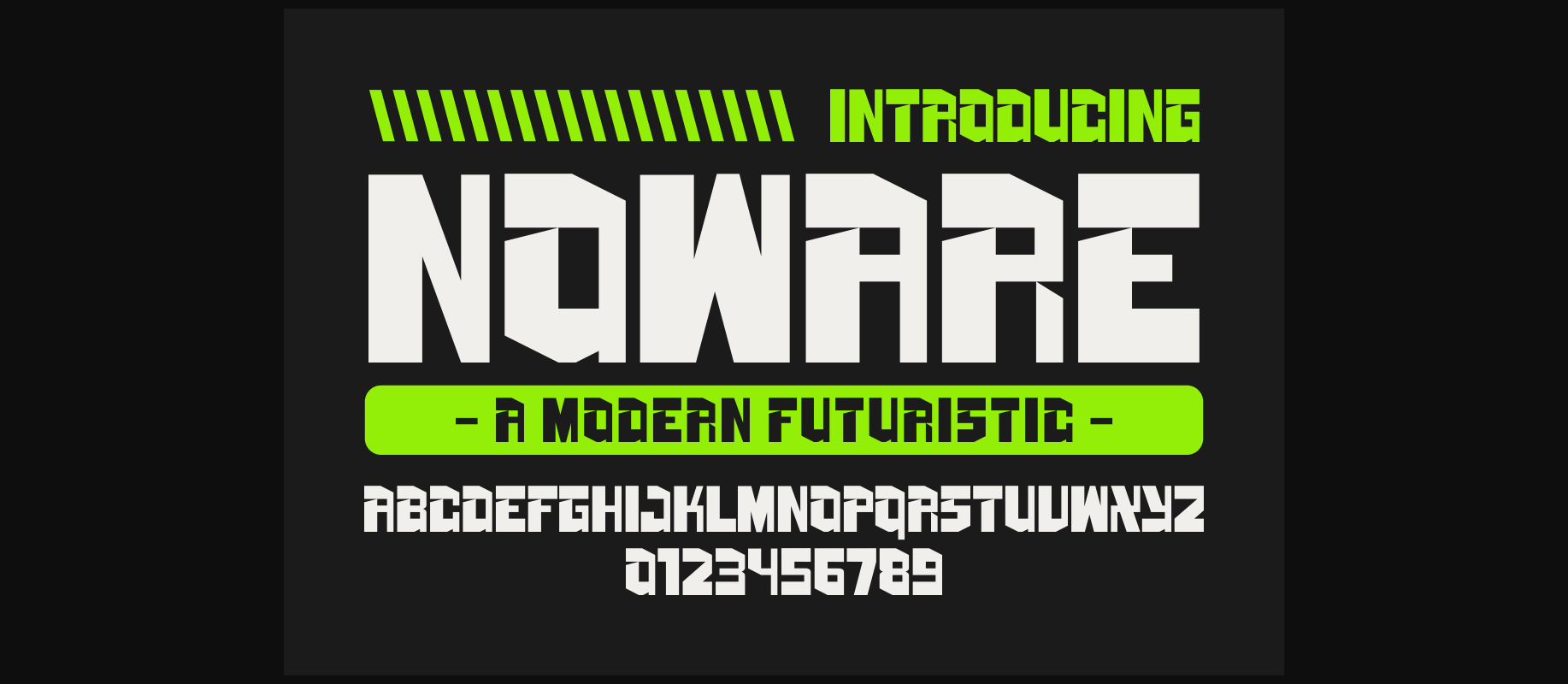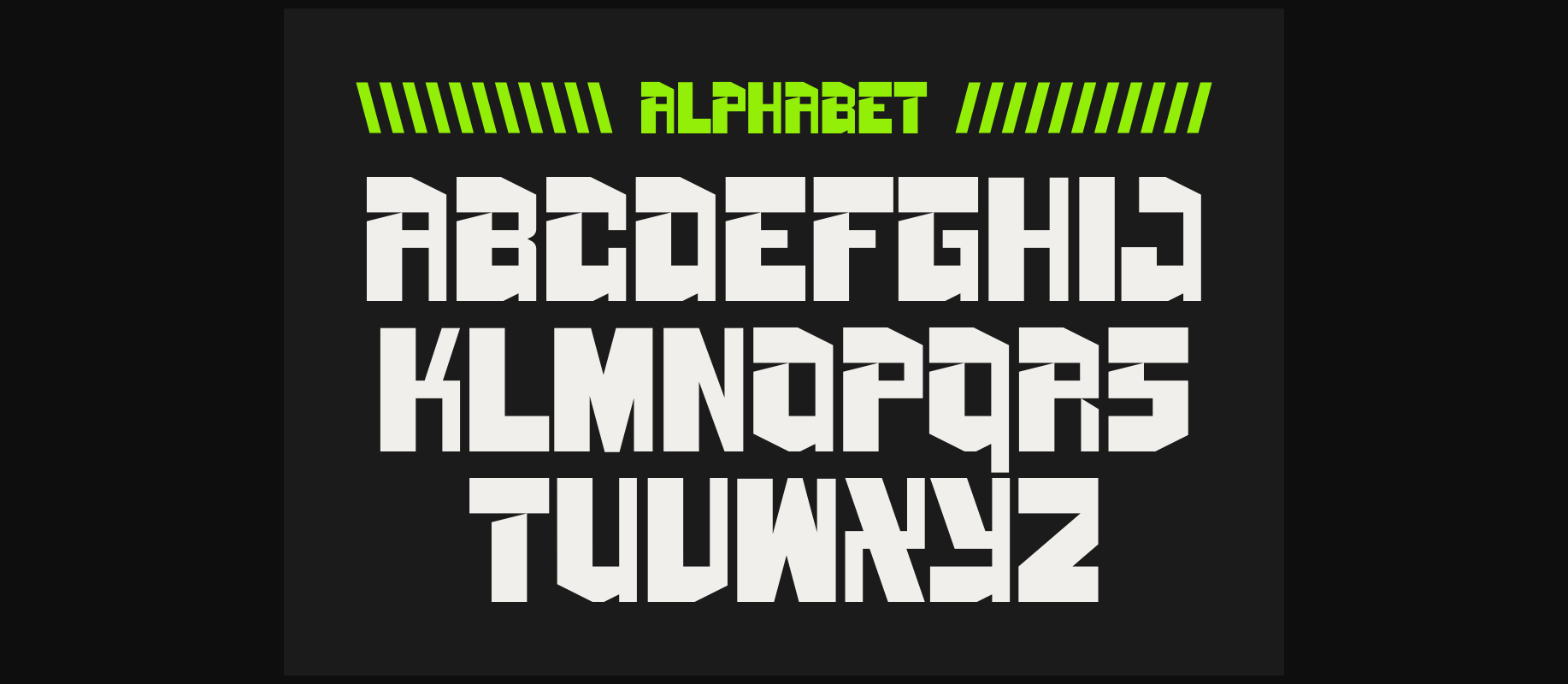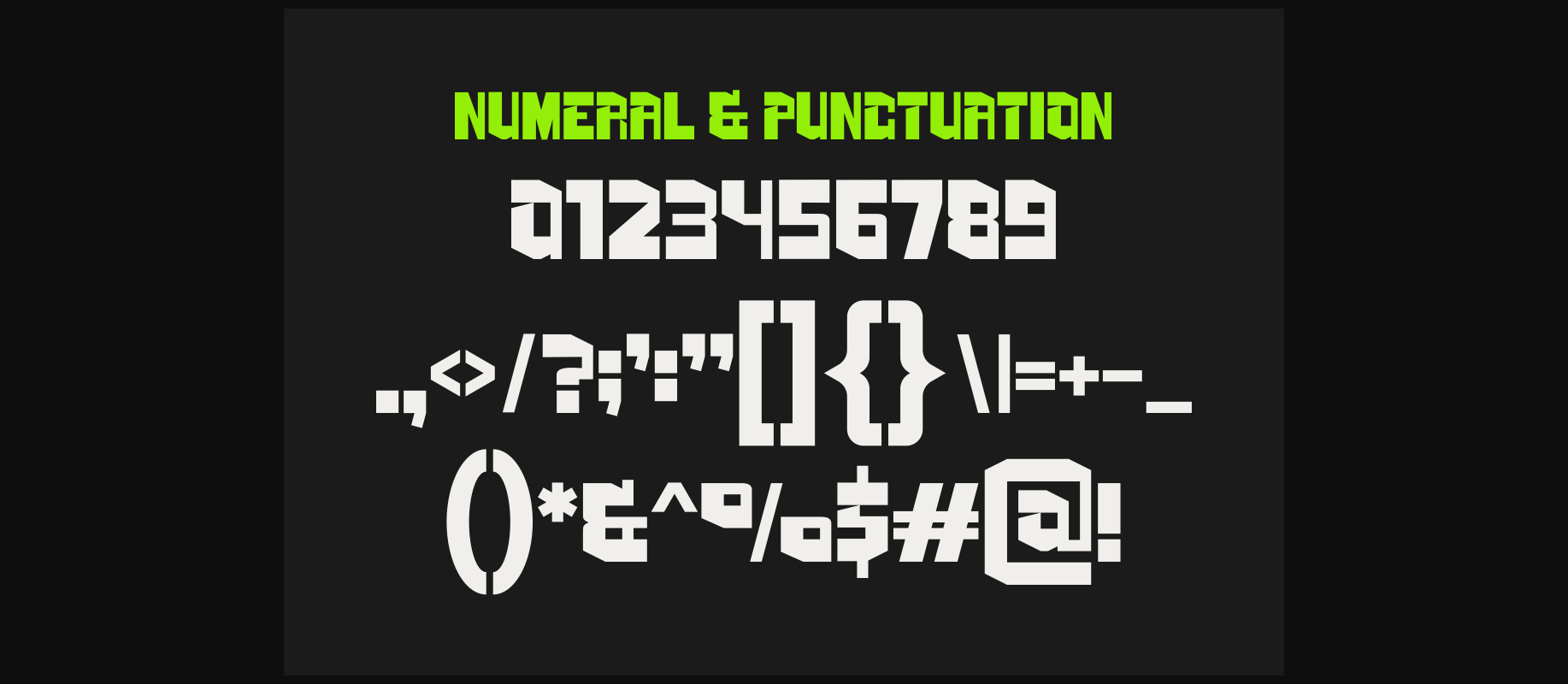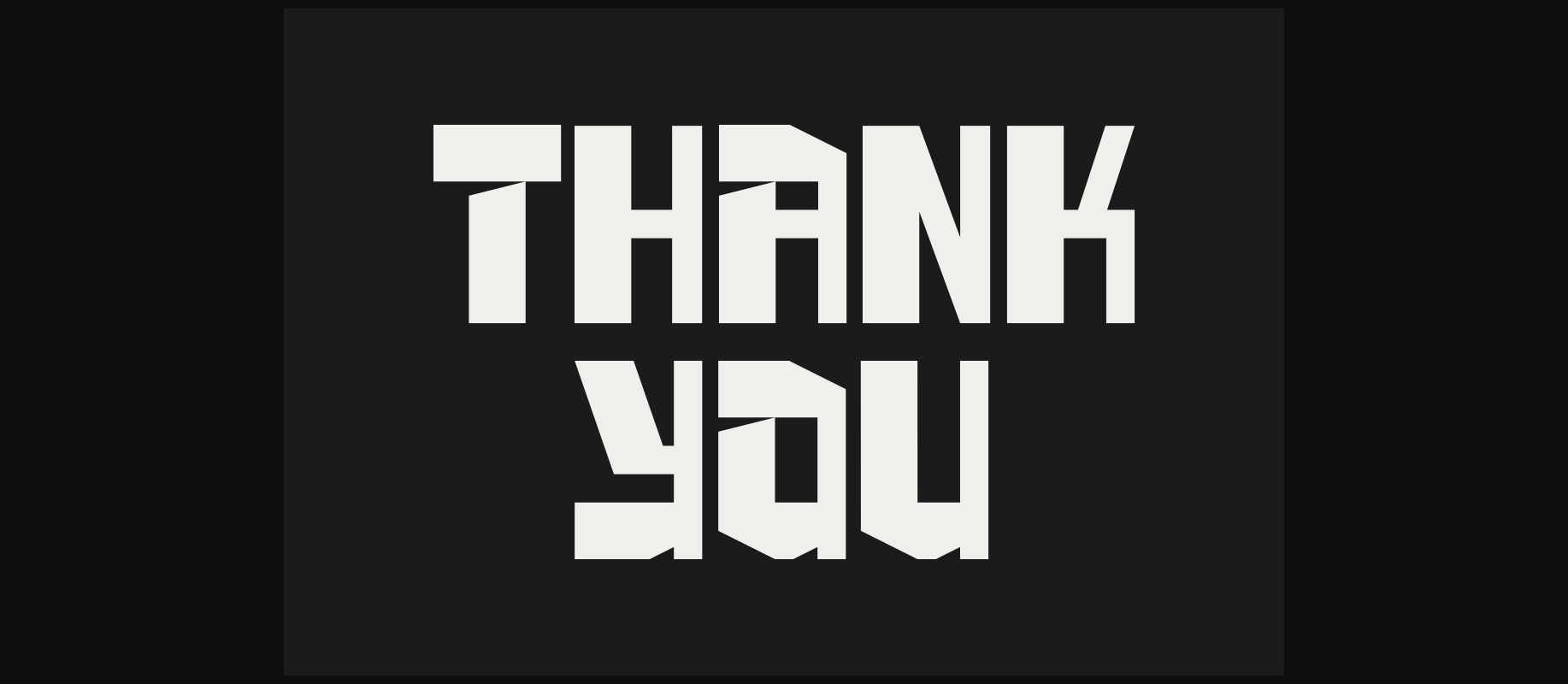
About Noware Font
Introducing our new product **NOWARE** – Modern Font
**NOWARE** – Modern Font is a bold and authentic display font. The font is suitable for any branding project like logo, t-shirt printing, esport, and many more. outstanding in a wide range of contexts.